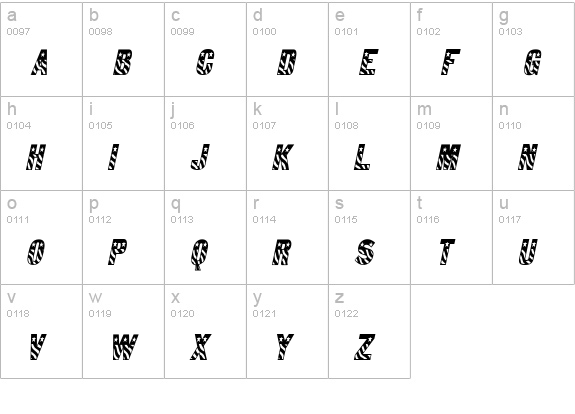
Bunting 1Condensed Italic is a distinctive, condensed-width, italic variant in the Bunting typeface family \xE2\x80\x94 well suited to design and typography projects.
Bunting 1Condensed Italic font is a sleek and modern typeface that exudes elegance and sophistication. Its condensed style adds a sense of sleekness to any design project, making it perfect for branding, headlines, and editorial layouts. The italicized version of the font adds a touch of flair and dynamism, making it stand out from the crowd. What makes Bunting 1Condensed Italic font even more appealing is that it is freely available to download at FontsMarket.com. This means that you can easily access this beautiful font and use it in your projects without any cost. With its clean lines and stylish appearance, Bunting 1Condensed Italic font is sure to elevate your designs and make a lasting impression on your audience.